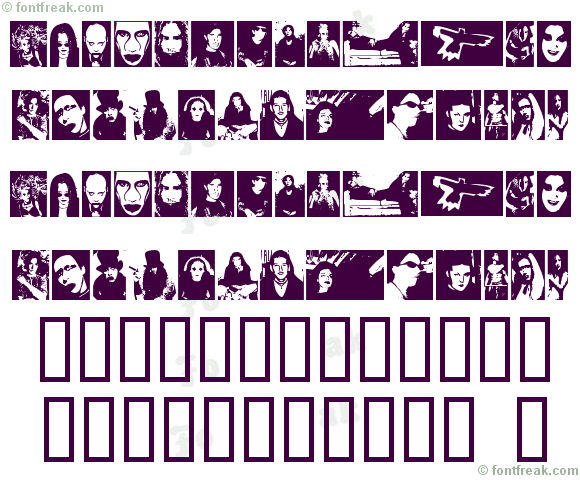
The Beautiful People
About The Beautiful People
The Beautiful People font by Utopiafonts is a unique decorative typeface that blends artistry with a playful spirit. Released in 1998 by designer Dale Thorpe, this font captures the essence of creative expression through its distinctive visual characteristics. The font showcases an array of artistic elements, featuring bold, stylized letters that appear almost like a collage of faces and forms. The strokes exhibit a moderate weight with a varying contrast that adds depth, making it visually engaging. The spacing is thoughtfully arranged, ensuring readability while maintaining a dynamic aesthetic.
This font is ideal for a variety of creative applications. It shines in wedding invitations, where its whimsical flair can add a touch of elegance to the special occasion. Movie posters also benefit from The Beautiful People font, as its eye-catching design can effectively draw attention and convey the film’s unique theme. Restaurant menus can utilize this font to create a memorable branding experience, especially for establishments looking to convey a fun and inviting atmosphere. Additionally, it serves well for artistic flyers and promotional materials, appealing to creative events or festivals.
What sets The Beautiful People font apart is its playful yet sophisticated design, which captures attention and sparks curiosity. The combination of artistic elements and usability makes it a standout choice for those seeking a font that embodies creativity and individuality. For those interested, a quick search will lead to The Beautiful People font free download, allowing you to incorporate this unique typeface into your next project.